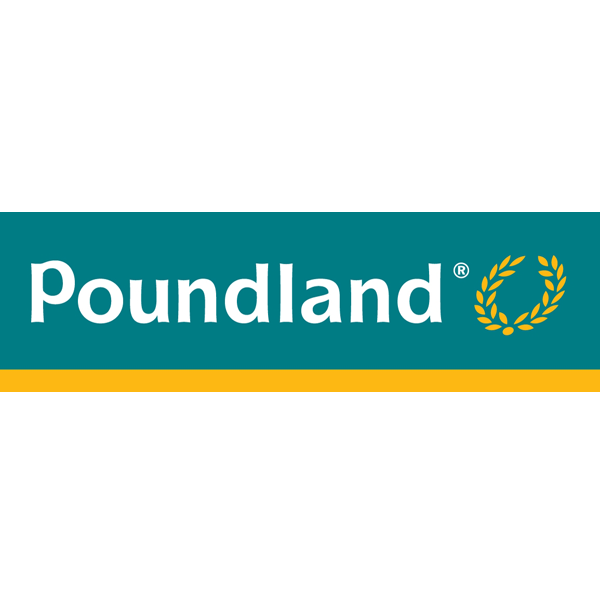
Poundland Font
Fonts in UsePoundland is a British discount store chain that sells products for £1. It was founded in 1990 by Steve Smith and is currently owned by Pepkor Europe, a subsidiary of Steinhoff International Holdings.
The font used for the Poundland wordmark is Mixage Bold, a humanist sans serif designed by Aldo Novarese for ITC in 1985. Mixage is a commercial font, and further information can be found here.